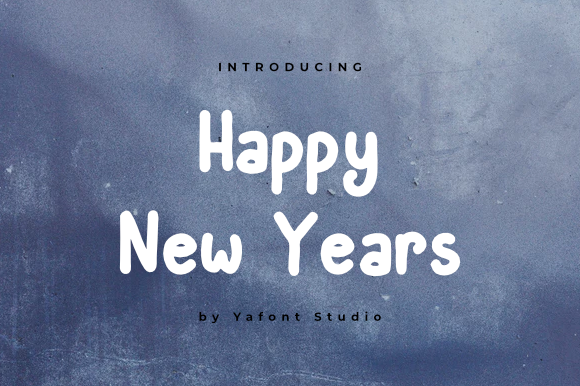
Happy New Year Font
About Happy New Year Font
Happy New Years is a handwritten font, which is very suitable for book covers, cartoons, banners, and so on